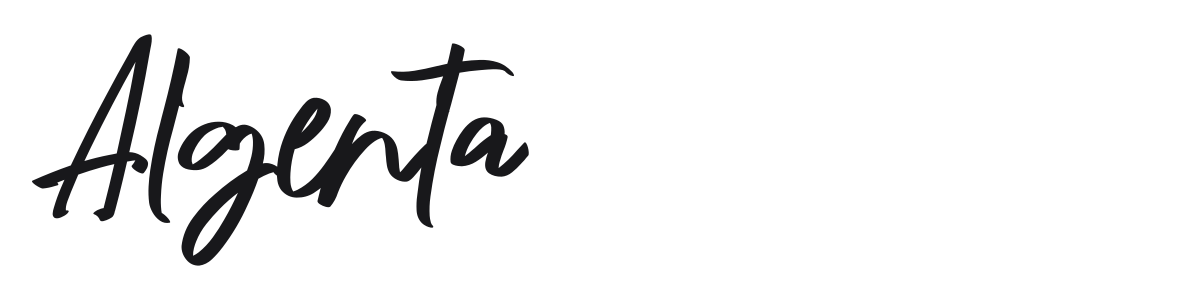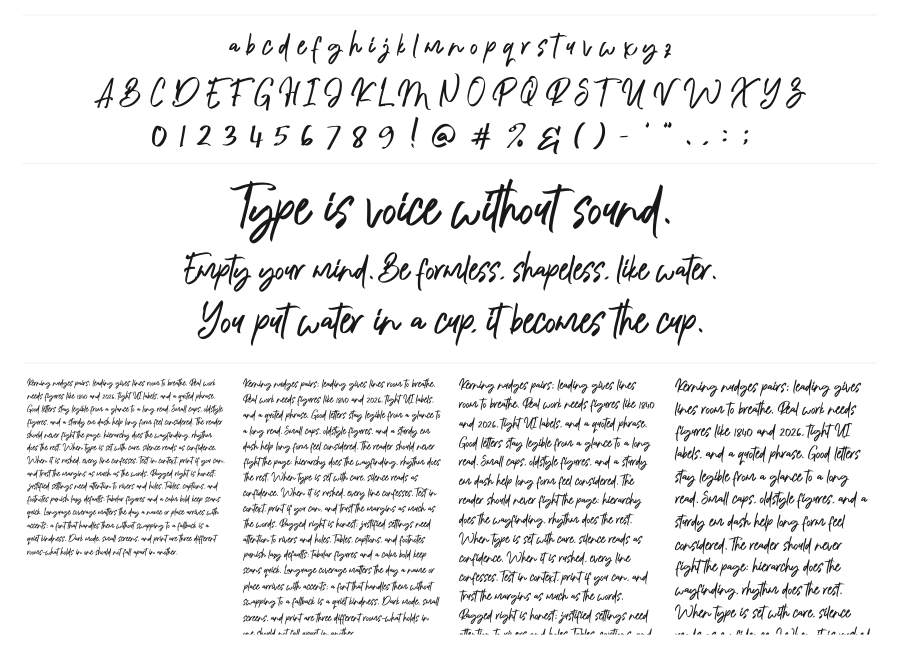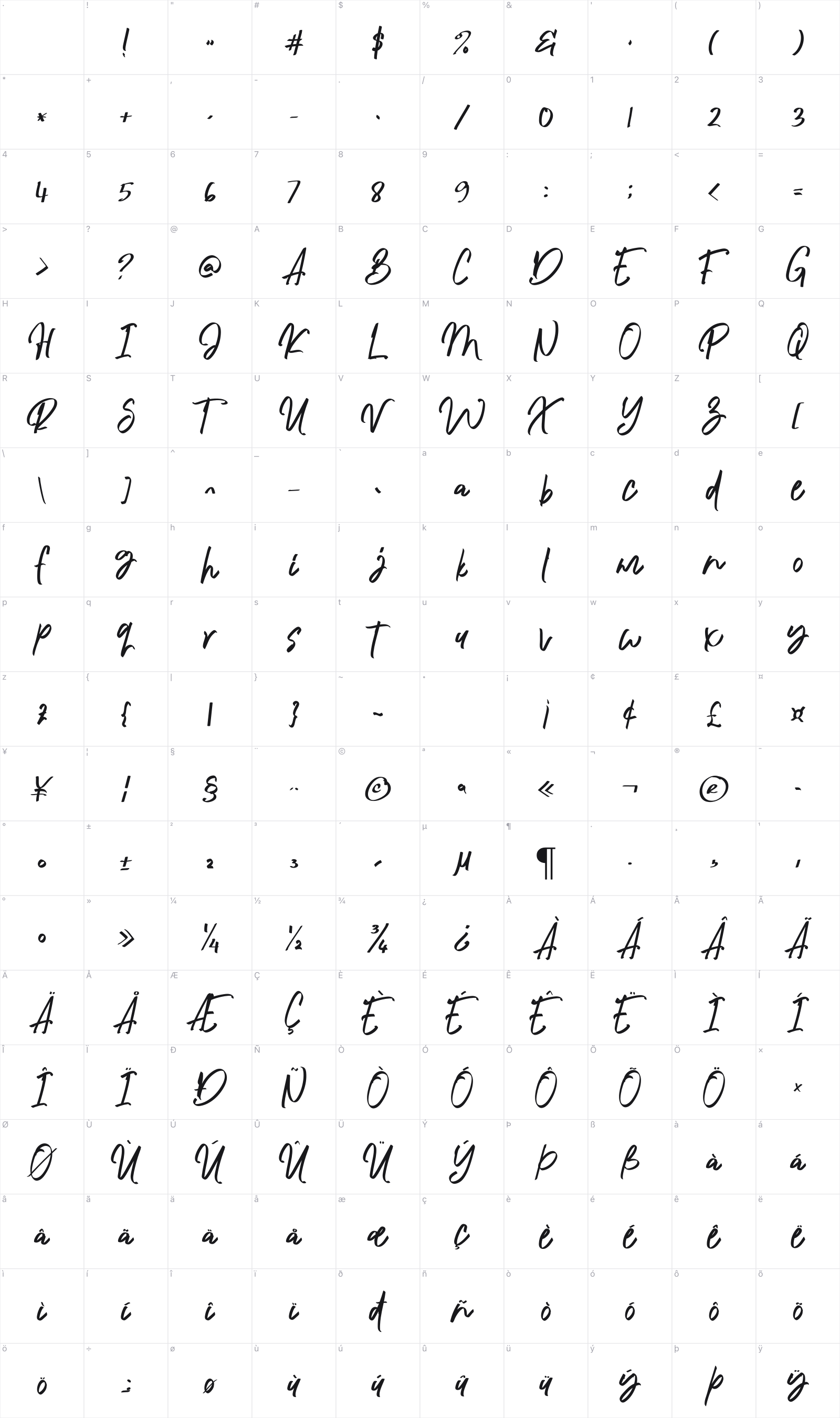
Algenta
Algenta is a bold casual brush script with fluid, expressive strokes and a natural hand-lettered energy. The strong contrast between thick downstrokes and wispy hairlines gives it a lively, inky quality that reads as spontaneous without feeling sloppy. It works well for branding, packaging, and social media graphics where a warm, personal touch is the goal.